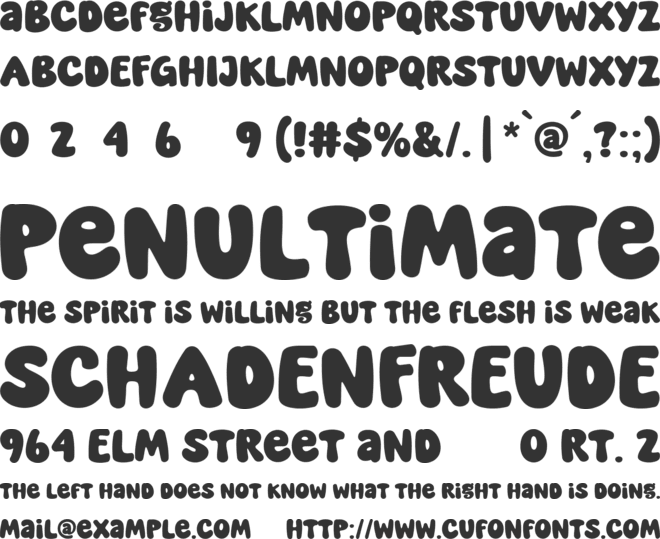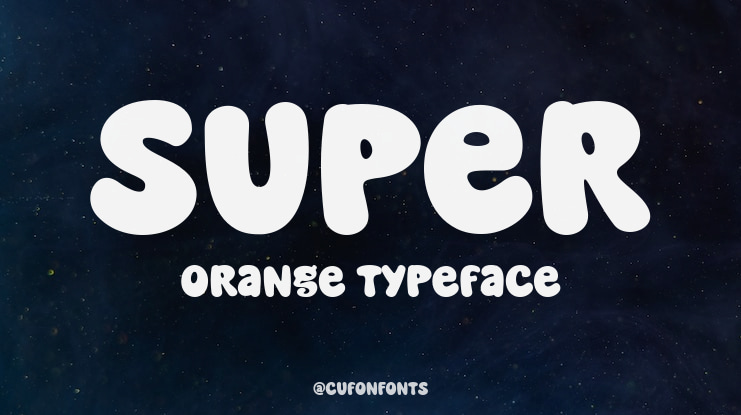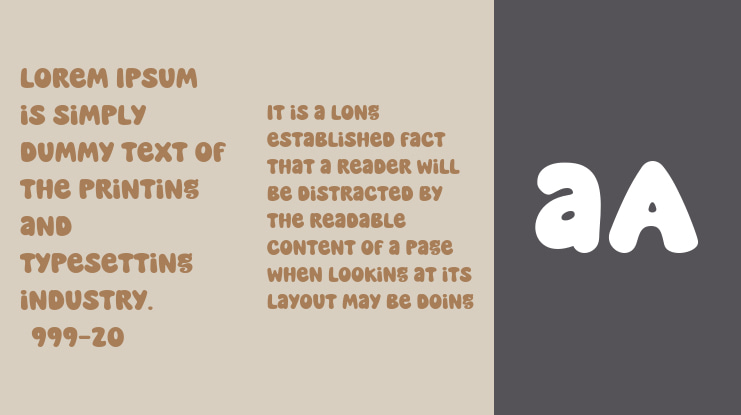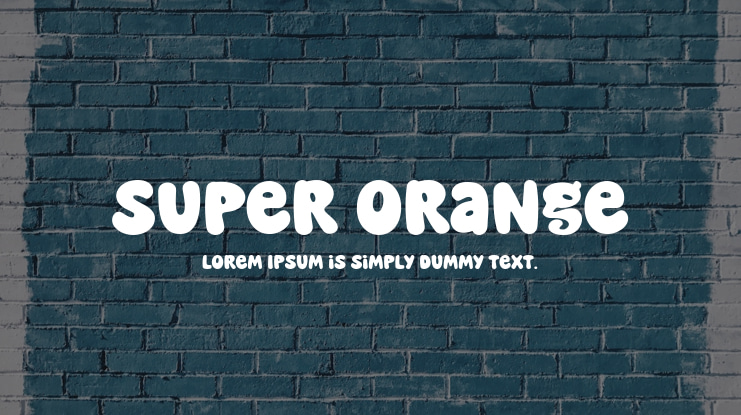
Super Orange Font
Super Orange is a bold and bubbly font that exudes pure joy. Its rounded, open forms create a playful and inviting atmosphere, perfect for capturing attention. This energetic typeface is ideal for designs targeting a young audience or projects that demand a fun and friendly vibe. Whether it's for children's products, casual branding, or attention-grabbing headlines, Super Orange is sure to add a splash of sunshine to any project.